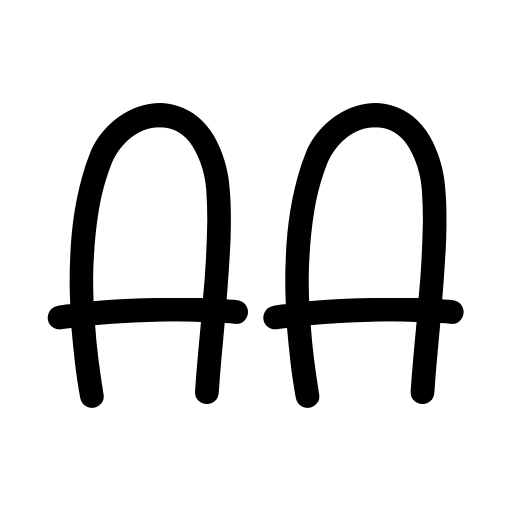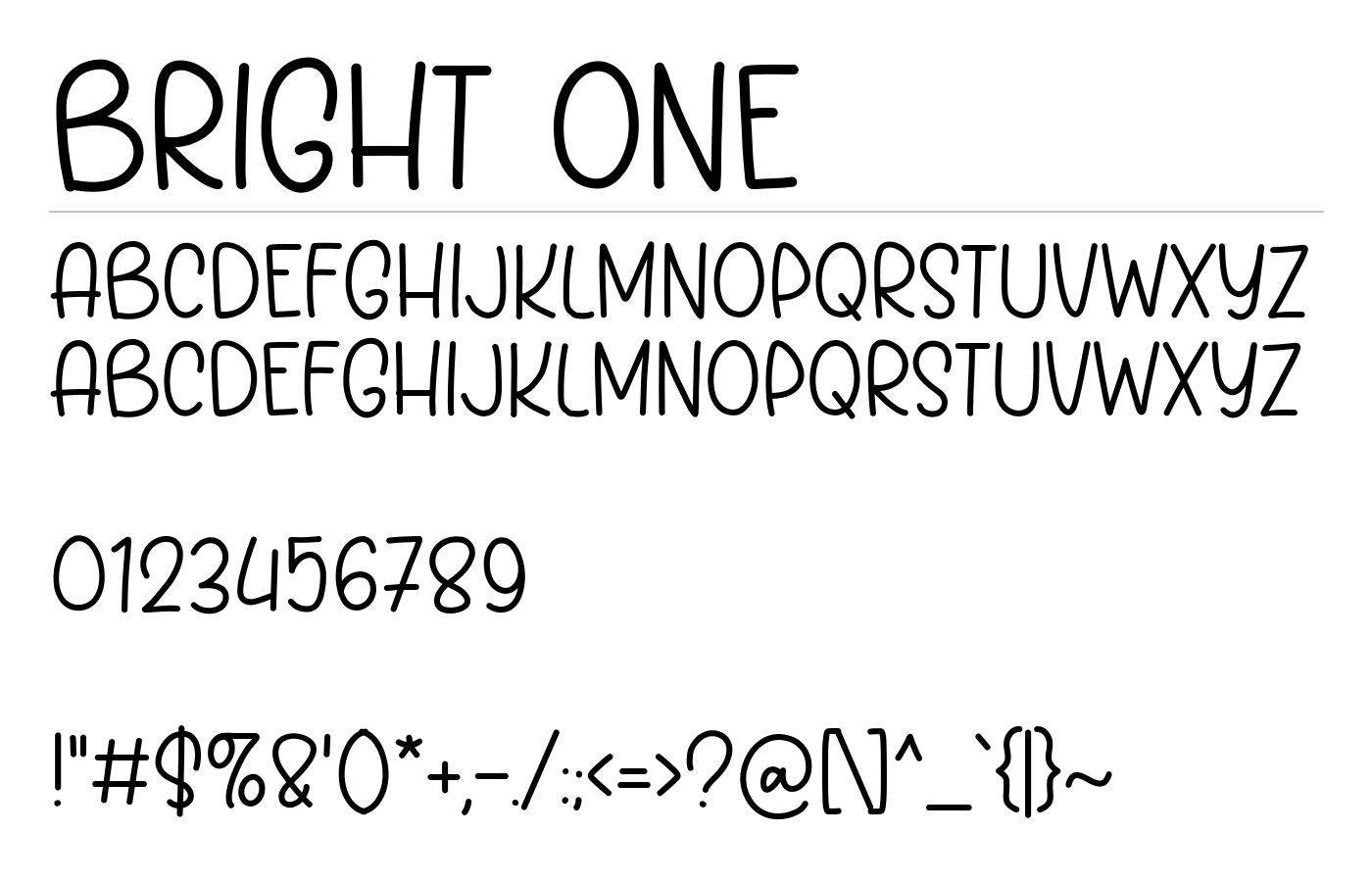
Bright One is a playful and casual sans serif font with a hand-drawn feel, featuring slender, slightly rounded strokes that give it a friendly and approachable personality. Its tall, narrow letterforms and uneven character shapes create an informal vibe, making it ideal for creative projects, children’s content, and lighthearted branding. This font works best in headlines, logos, and packaging where a cheerful and personal touch is desired.
Bright One Font
About Bright One Font